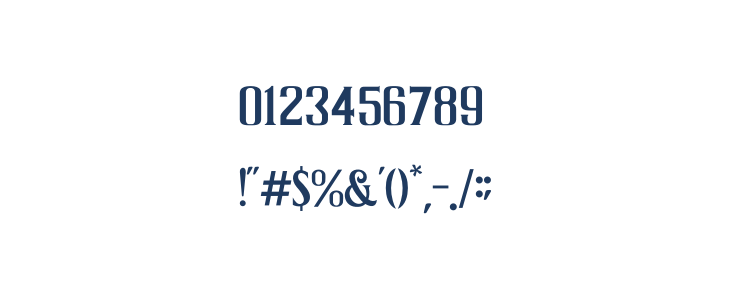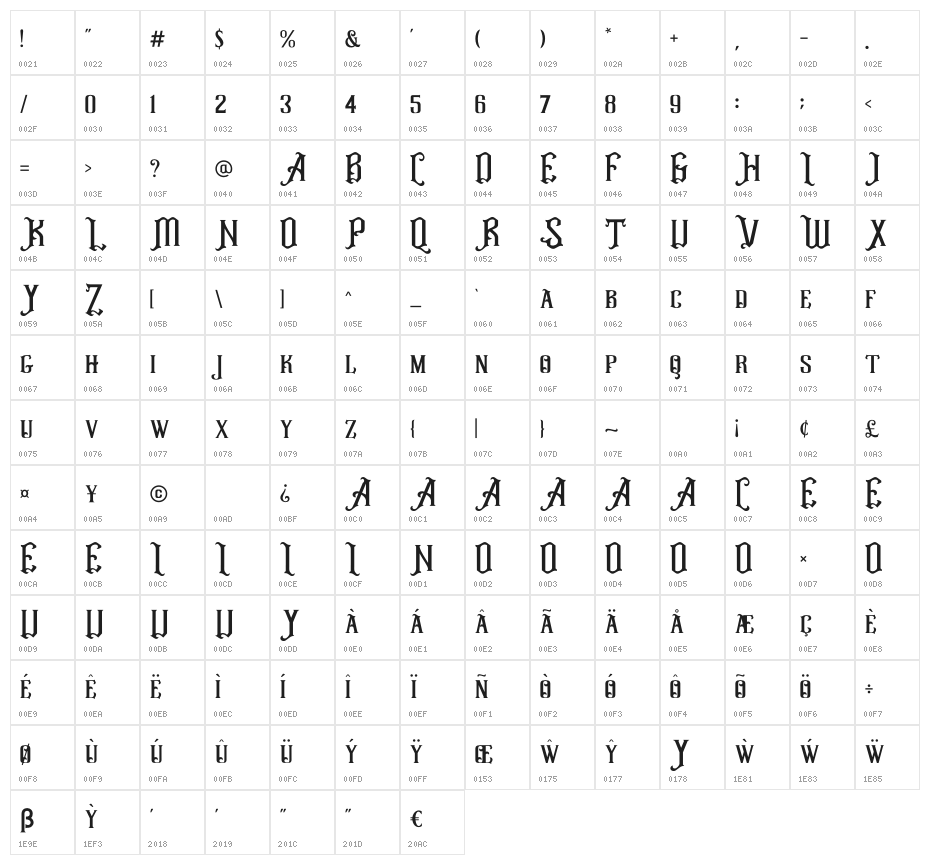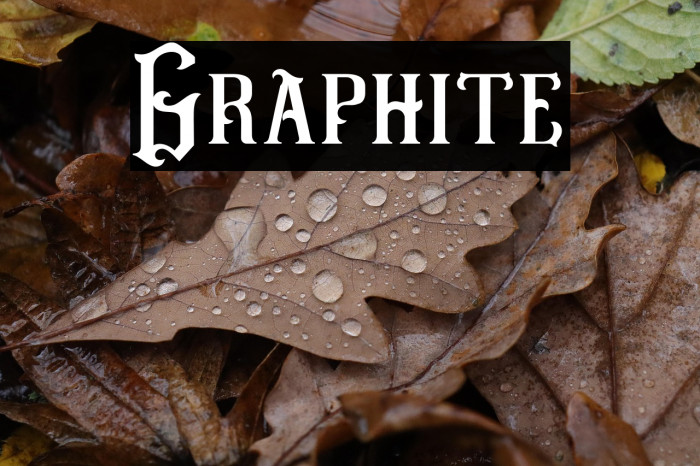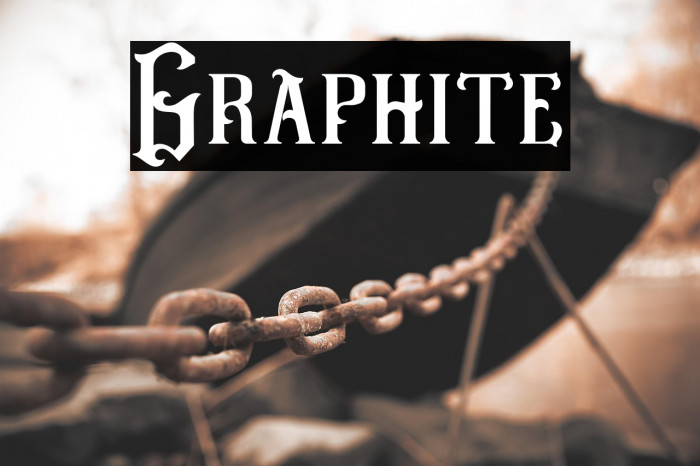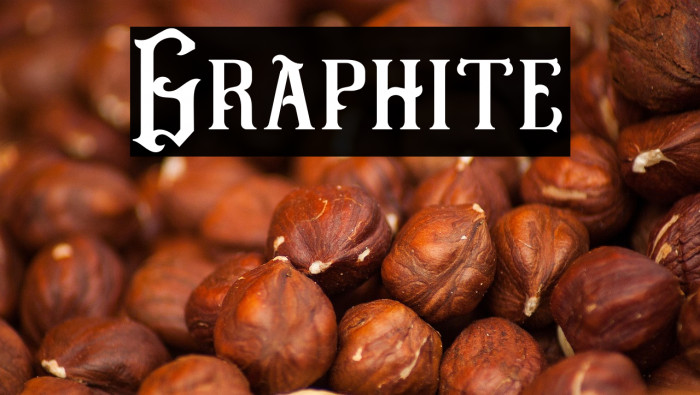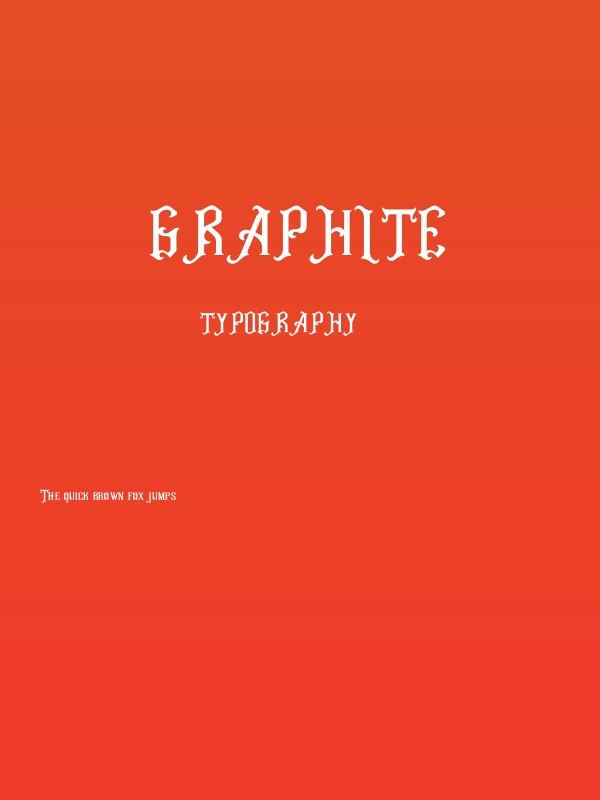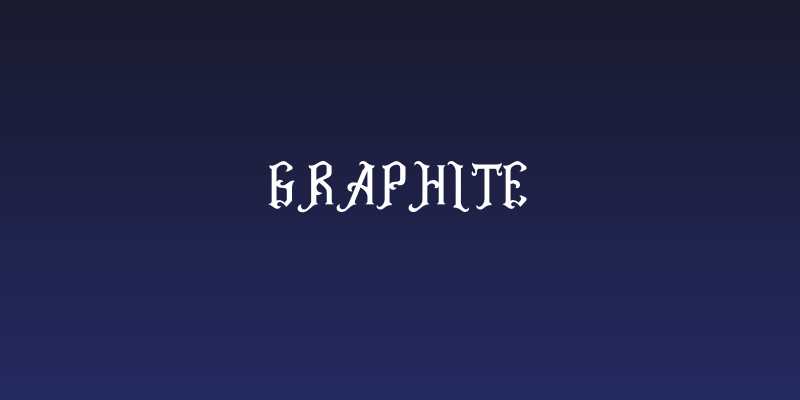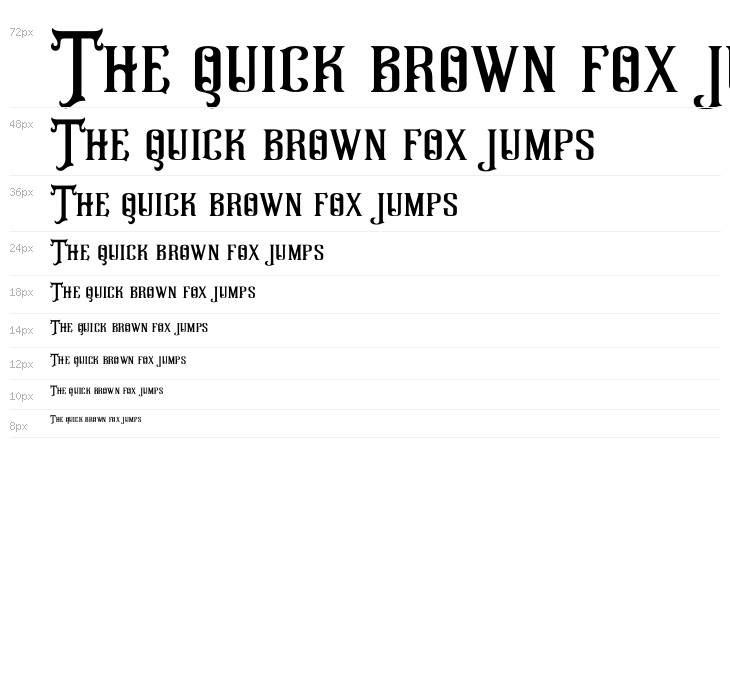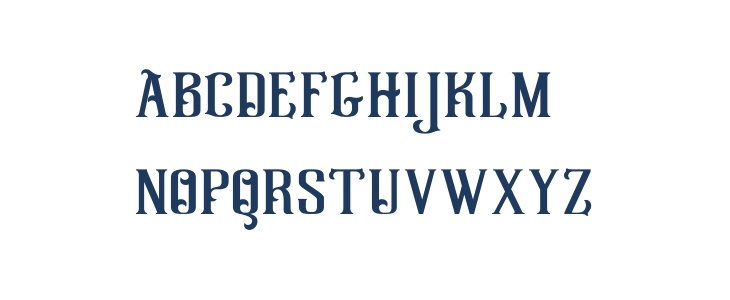
This font features a striking blend of traditional and modern elements, characterized by its bold, angular strokes and intricate detailing. The uppercase letters exhibit a Gothic-inspired style with sharp serifs and decorative flourishes, creating a sense of elegance and historical depth. The lowercase letters maintain a consistent design, offering a harmonious flow with slightly less ornamentation. Numbers and special characters are crafted with the same attention to detail, ensuring uniformity across all glyphs. The overall appearance is both commanding and sophisticated, making it suitable for projects that require a touch of classic refinement.
| Overall Style | Classic |
| Proposed Projects | Ideal for branding, headlines, posters, and any design work that seeks a classic yet bold aesthetic. |